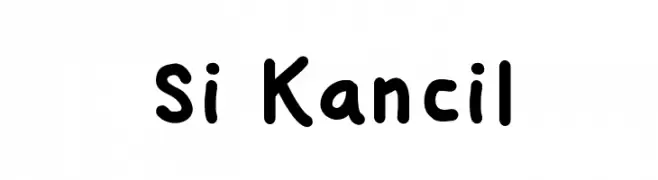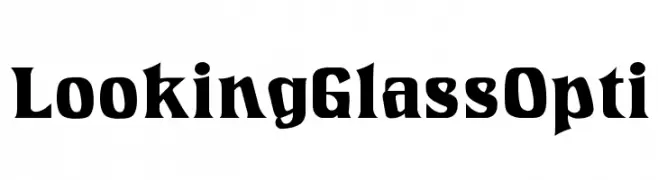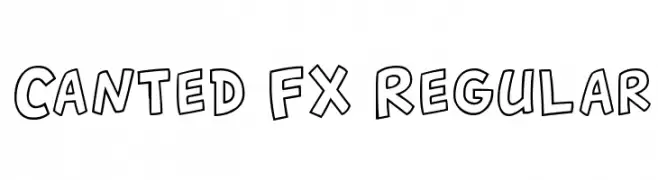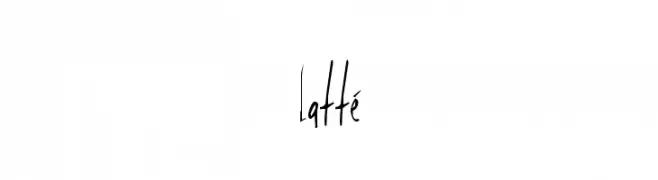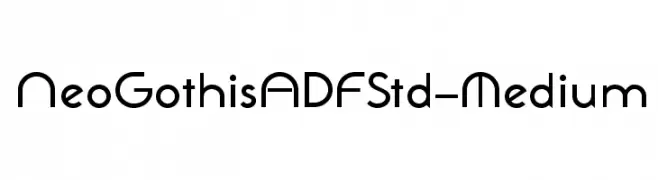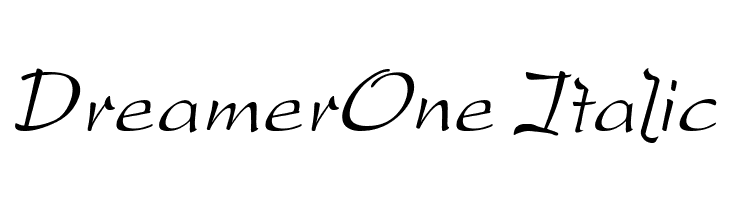
( Fonts by Khurasan )
A playful, bold font with rounded, bubbly characters and a friendly appearance.
( Fonts by Adien Gunarta - fontasticindonesia.blogspot.com )
A playful, hand-drawn style font with rounded, bold characters.
( Fonts by Castcraft Software - opti.netii.net - check the website before use )
A bold, serif font with strong, block-like serifs and a slightly condensed form.
( Fonts by Nils Cordes )
A playful, bold outline font with a cartoonish and dynamic style.
( Fonts by Arkandis Digital Foundry )
A modern, geometric font with a clean and sleek design.
A playful, hand-drawn font with dynamic strokes and a whimsical style.
( Fonts by Magang Letterhend )
A modern, rounded sans-serif font with a friendly and approachable style.
( Fonts by Dominique Demetz )
A playful, handwritten font with rounded, casual letterforms.
( Fonts by www.pia-frauss.de )
An ornate script font with elegant swirls and decorative flourishes.